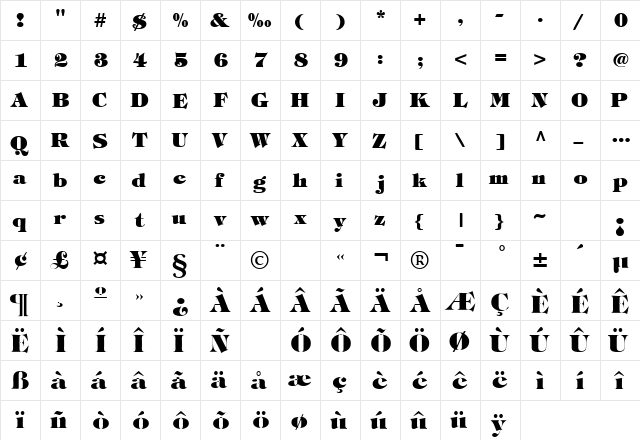
SophisticateBlackSSK Regular
Design Context for SophisticateBlackSSK Typeface
SophisticateBlackSSK offers clean, dependable letterforms without strong stylistic allegiance, making it a practical choice for designers who need flexibility.